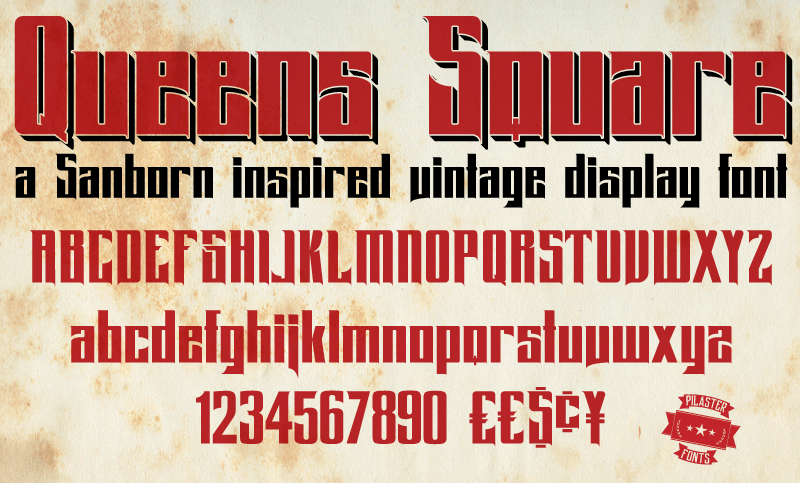
Font name: | Queens Square |
Author: | Pilaster Davy |
Note by Pilaster Davy | |
Queens Square is inspired by a 1911 Sanborn map cover. Queens Square is free for personal use and ‘as is’. If you like Queens Square, please feel free to make a ‘Domestic Brew’ sized donation to the ‘buy the author a drink fund’ using the donate button. For any commercial use, should you find one for it, a donation (How much is up to you) is mandatory! Cheers! Pil |